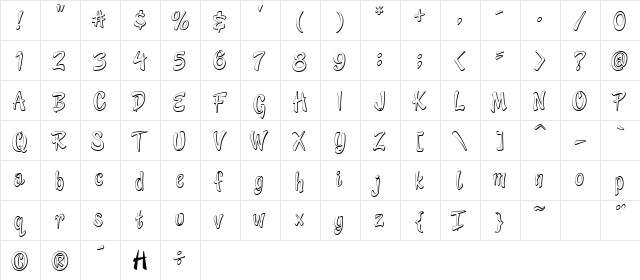
CCCheekyMonkey Outline
Design Context for CCCheekyMonkey Typeface
CCCheekyMonkey is built around its visual character rather than neutral utility — its distinctive forms are designed to make an impression at display sizes.
Font Pairing: Pair with a clean neutral sans-serif for body copy to let CCCheekyMonkey's character lead without overwhelming the composition.
Pro Tip: Treat CCCheekyMonkey as the centrepiece of your typographic hierarchy. One strong heading set in a decorative face can carry an entire layout.